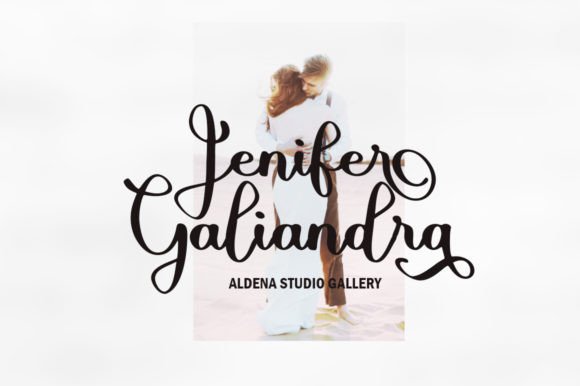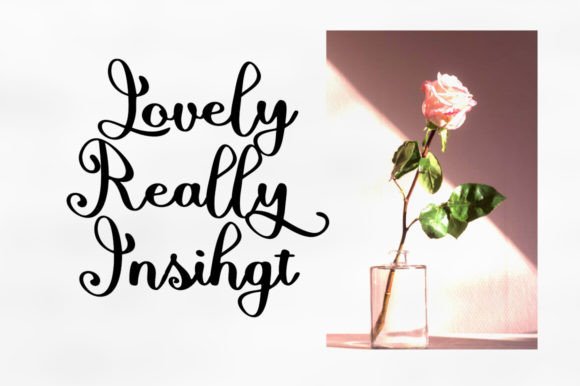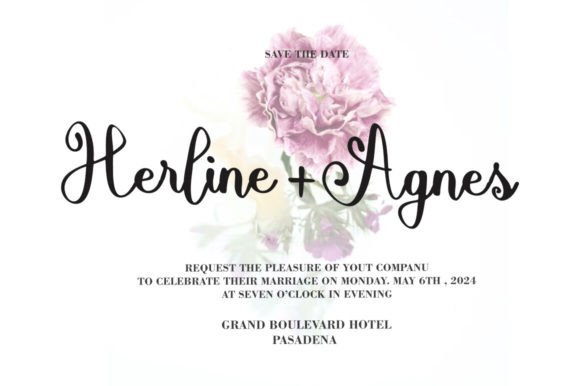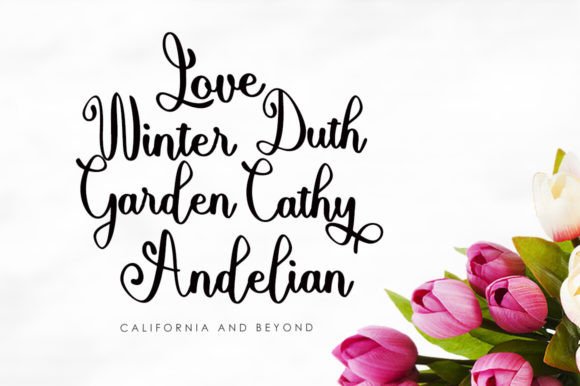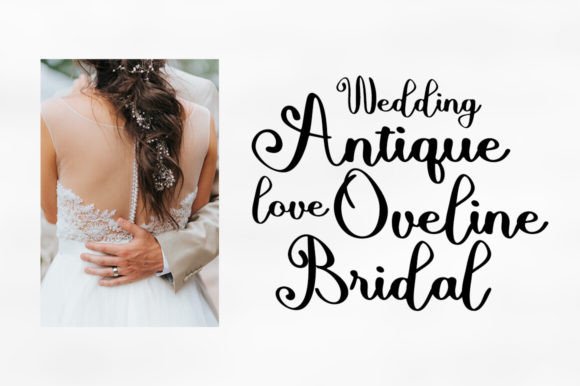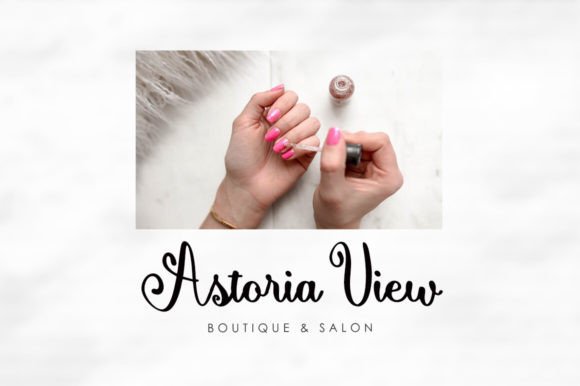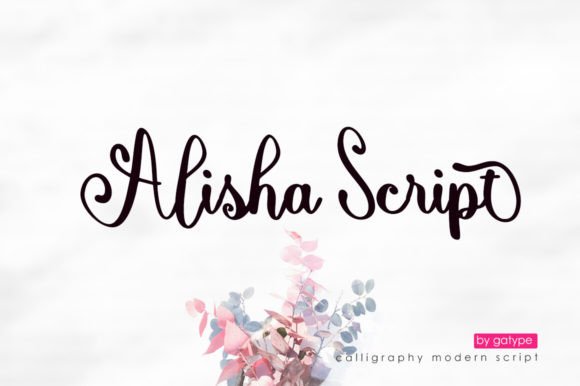
Introducing Alishan Script Font: Elevate Your Designs with Elegance
Are you on the hunt for a font that exudes sophistication, elegance, and a touch of modern flair? Look no further than the Alishan Script Font. This beautifully crafted handwritten font is designed to capture the hearts of designers and crafters alike, offering the perfect blend of classic calligraphic influences and contemporary style.
The Essence of Alishan Script Font
Alishan Script is an exquisite handwritten font, masterfully designed to become a true favorite among designers and crafters. Its classy calligraphic influences are skillfully balanced with modern elements, making it feel fresh and current. This unique blend of traditional and contemporary styles makes Alishan Script an incredibly versatile font, suitable for a wide range of design projects.
Key Features of Alishan Script Font
- Exquisite Handwritten Style: Alishan Script boasts a beautiful, handwritten appearance that adds a personal touch to any design project.
- Classy Calligraphic Influences: The font’s calligraphic roots give it an air of sophistication and elegance, perfect for designs that require a high level of refinement.
- Contemporary and Fresh: Despite its classic influences, Alishan Script feels modern and current, making it ideal for designers looking for a font that will make their work stand out.
- Versatility: From wedding invitations and branding materials to digital content and craft projects, Alishan Script’s versatility knows no bounds.
Why Choose Alishan Script Font?
Choosing the right font for your design project can be a daunting task, but Alishan Script Font offers several compelling reasons to make it your top choice:
- Emotional Connection: The handwritten nature of Alishan Script creates an emotional connection with the reader, making your designs more relatable and engaging.
- High Readability: Despite its elegant and cursive nature, Alishan Script maintains high readability, ensuring your message is conveyed clearly and effectively.
- Unique Style: In a sea of generic fonts, Alishan Script stands out with its unique style, allowing your designs to capture attention and leave a lasting impression.
Using Alishan Script Font in Your Projects
Alishan Script Font can elevate a wide range of design projects, including:
- Wedding and Event Planning: Create stunning wedding invitations, save-the-date cards, and event banners that set the tone for a memorable occasion.
- Branding and Marketing: Use Alishan Script to develop a unique brand identity that reflects elegance, sophistication, and a touch of personality.
- Digital Content: Enhance your blog posts, social media graphics, and website content with a font that adds a personal and creative touch.
- Crafting and DIY Projects: Add a professional and artistic flair to your crafting and DIY projects, such as handmade cards, scrapbooking, and more.
Alishan Script Font is a masterpiece of modern calligraphy, offering designers and crafters a unique opportunity to elevate their projects with elegance and sophistication. Its exquisite handwritten style, classy calligraphic influences, and contemporary freshness make it the perfect choice for anyone looking to add a touch of class and personality to their designs. Fall in love with Alishan Script and bring your projects to the highest levels of creativity and professionalism.